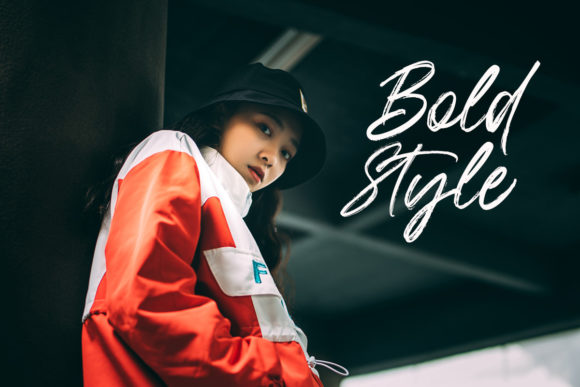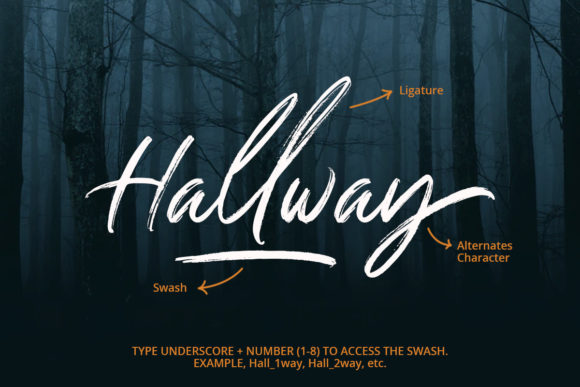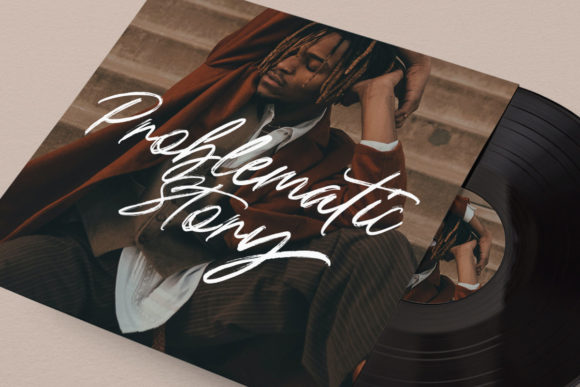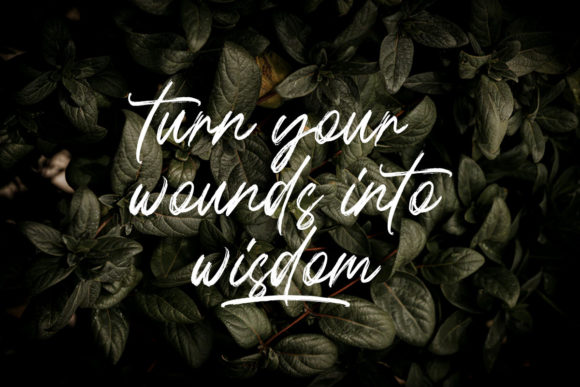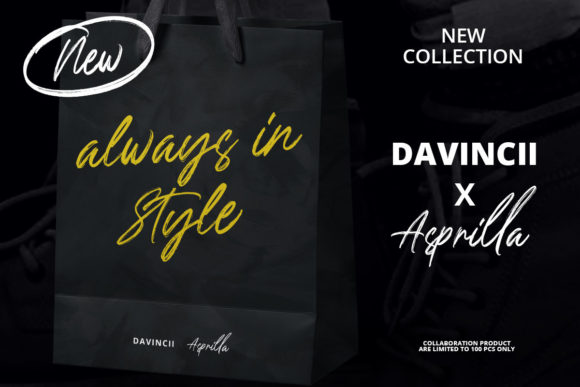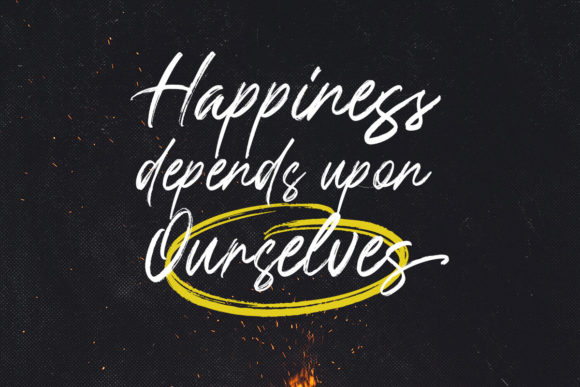
Unleash Your Creativity with Dark Witches Font: A Cool Brushed Handwritten Font
Are you a designer or crafter looking for a unique and versatile font to elevate your creative projects? Look no further than Dark Witches Font, a stunning brushed handwritten font that is sure to captivate your audience. With its lovely flow and incredibly versatile style, this font is perfect for creating spectacular designs that stand out from the crowd.
What Makes Dark Witches Font So Special?
Dark Witches Font is a cool brushed handwritten font that features a distinctive, hand-crafted look. Its unique style is characterized by its smooth, flowing lines and elegant swashes, which give it a touch of sophistication and glamour. Whether you’re creating a logo, poster, or social media graphic, this font is sure to add a touch of magic to your design.
One of the best things about Dark Witches Font is that it’s PUA (Private Use Area) encoded, which means you can access all of the glyphs and swashes with ease. This makes it simple to customize your text and add unique touches to your design. With PUA encoding, you can unlock the full potential of this font and create truly one-of-a-kind designs.
Dark Witches Font is incredibly versatile, making it perfect for a wide range of design projects. Whether you’re creating:
- Social media graphics and quotes
- Invitations and party decorations
…this font is sure to shine. Its unique style works well in both digital and print formats, making it a great addition to your design toolkit.
Why Designers and Crafters Love Dark Witches Font
So, what makes Dark Witches Font so popular among designers and crafters? Here are just a few reasons:
- Unique style: Dark Witches Font has a distinctive, hand-crafted look that’s hard to find in other fonts.
- Ease of use: The font is PUA encoded, making it easy to access all of the glyphs and swashes.
- Versatility: This font works well in a wide range of design projects, from logos to social media graphics.
- High-quality design: The font is carefully crafted to ensure a smooth, flowing look that’s perfect for creating beautiful designs.
Tips for Using Dark Witches Font
To get the most out of Dark Witches Font, here are a few tips:
- Experiment with different sizes: This font looks great in a variety of sizes, from large headings to smaller body text.
- Play with swashes: The font’s swashes are a great way to add a touch of elegance to your design.
- Mix and match: Try pairing Dark Witches Font with other fonts to create a unique look.
Dark Witches Font is a stunning brushed handwritten font that’s perfect for designers and crafters looking to add a touch of magic to their creative projects. With its unique style, ease of use, and versatility, this font is sure to become a favorite in your design toolkit. So why wait? Download Dark Witches Font today and start creating spectacular designs that will leave your audience spellbound!